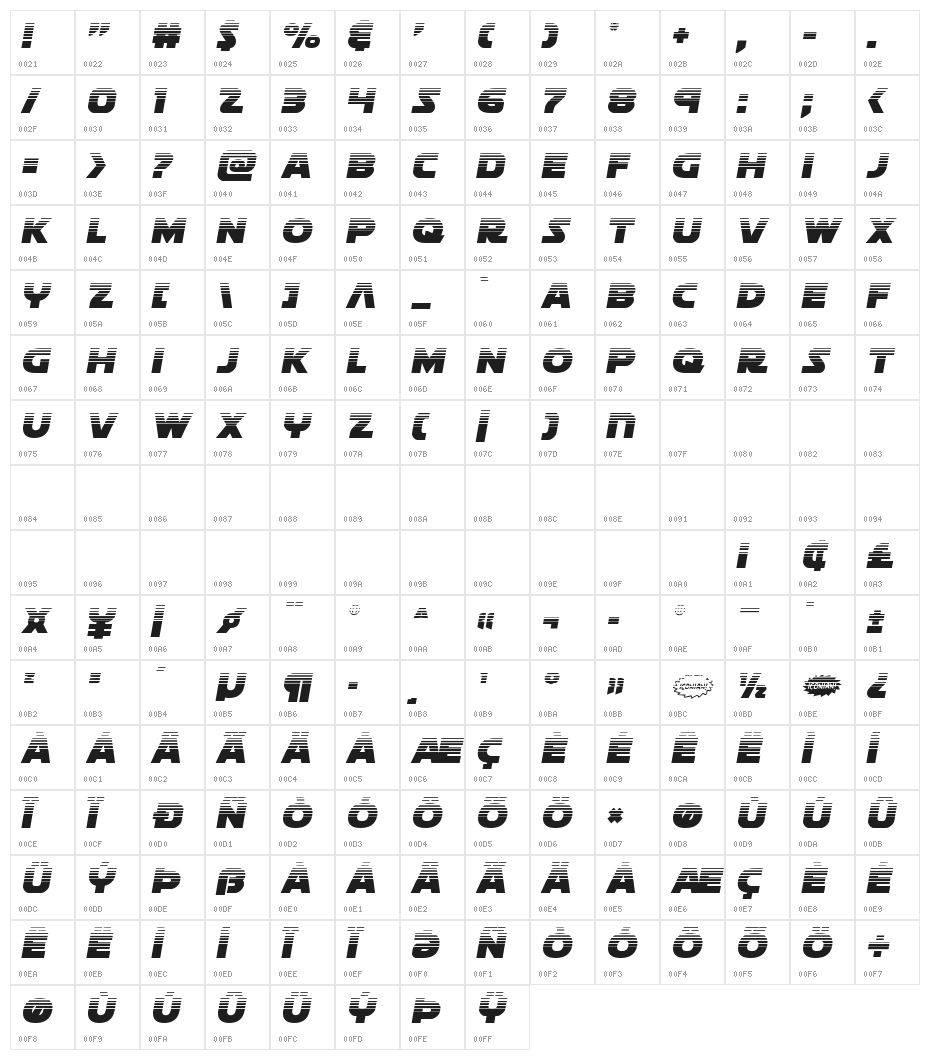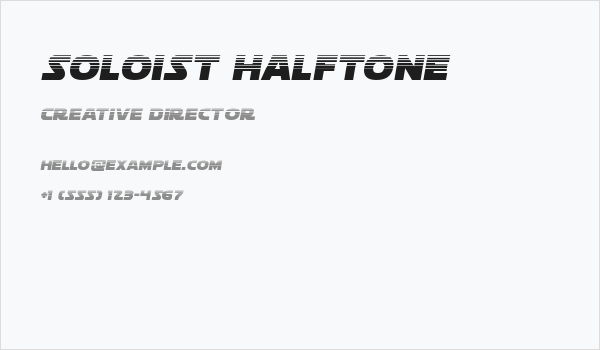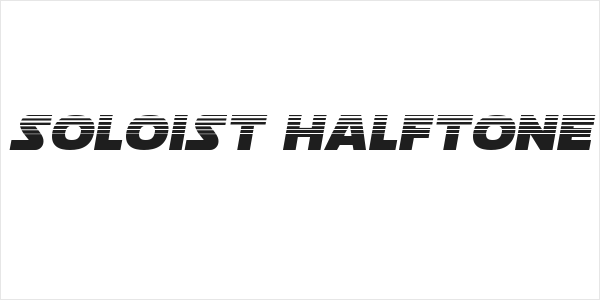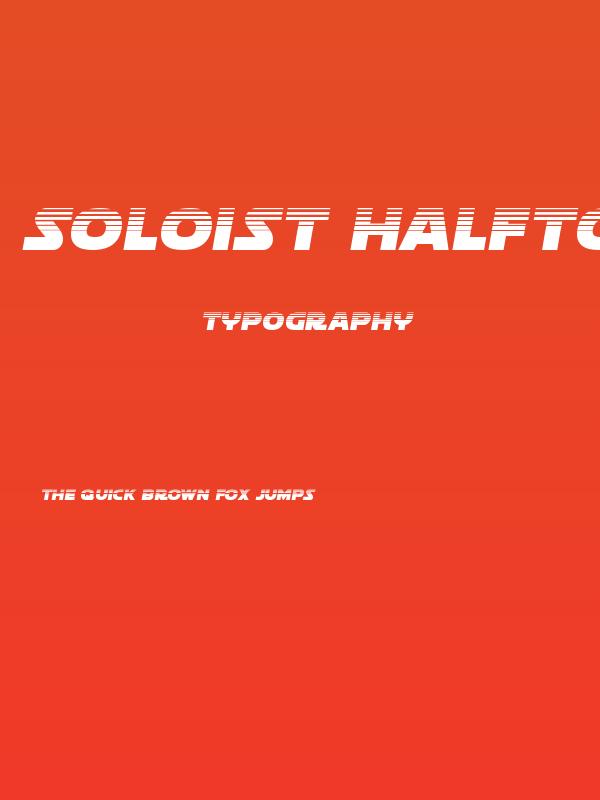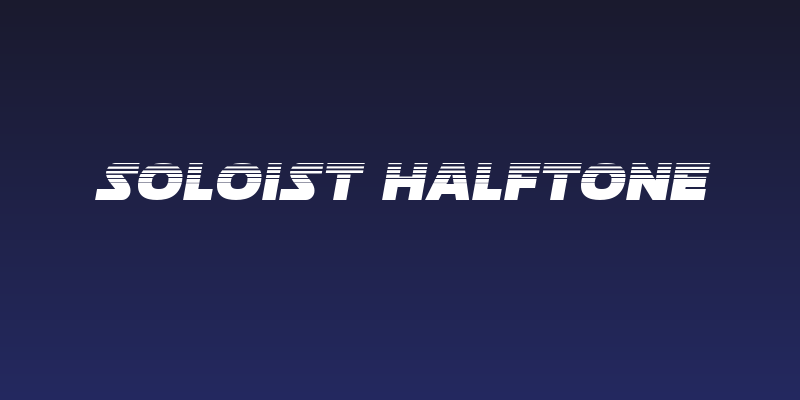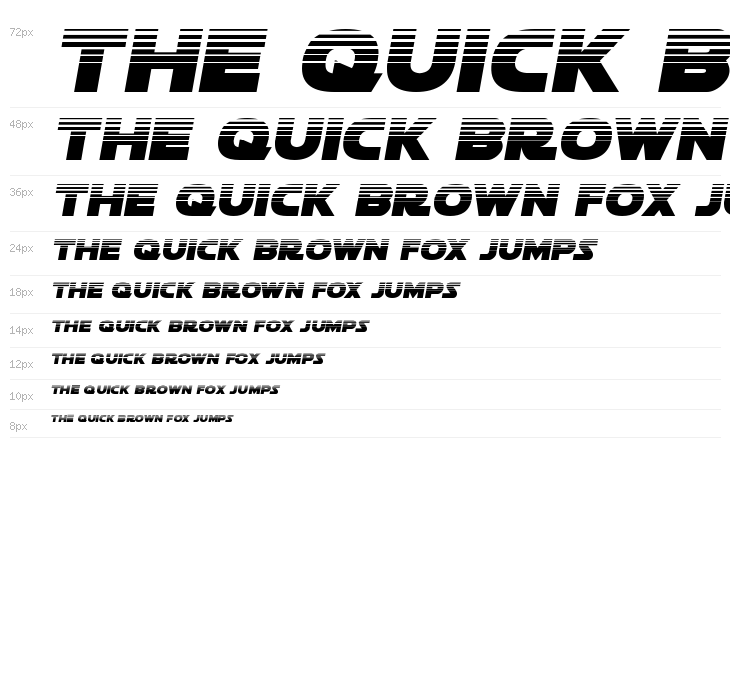
Soloist Halftone Font
Soloist Halftone Description
This font features a bold and dynamic design with a halftone effect that gives it a sense of movement and energy. The characters are constructed with thick strokes and a distinct horizontal striping pattern that creates a unique visual texture. The uppercase letters are particularly striking, with a strong presence that makes them ideal for attention-grabbing headlines. The numbers and special characters maintain the same bold style, ensuring consistency across all uses. This font is perfect for projects that require a modern and edgy look, such as sports branding, music album covers, or dynamic posters.
| Proposed Projects | Ideal for sports branding, music album covers, dynamic posters, and modern advertisements. |